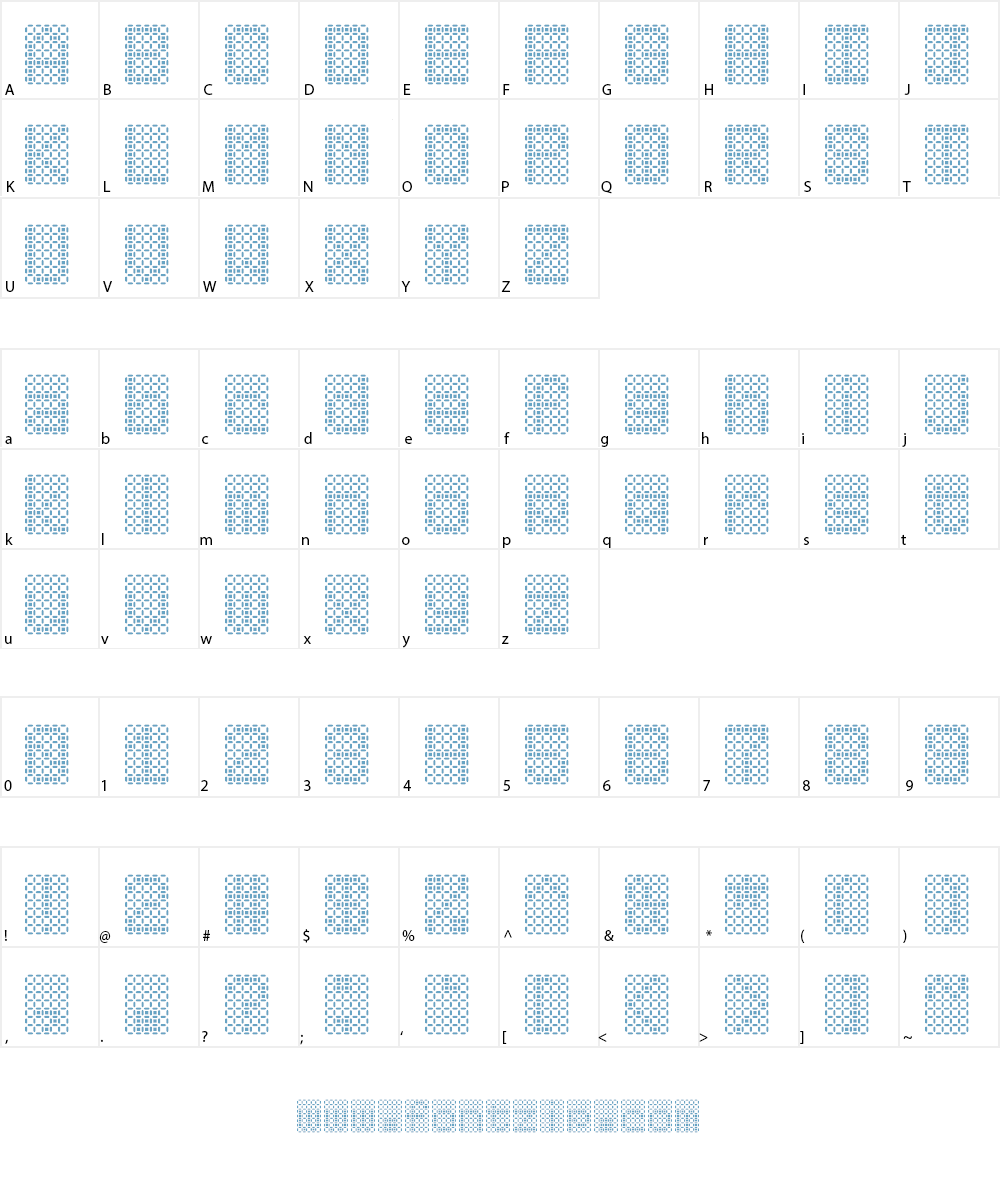
A 117-segment display made to have a "mosaic" look. Try using this one at odd sizes, especially with antialiasing off! The resulting distortions occur in a consistent way which leads to many new uses for the font.